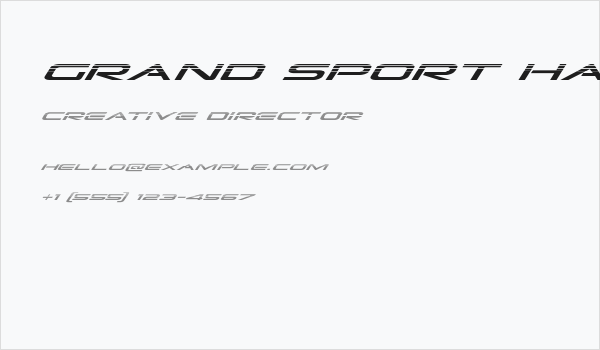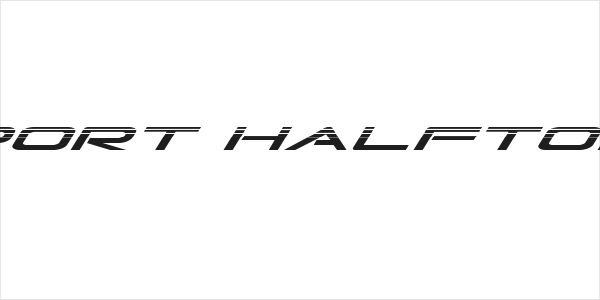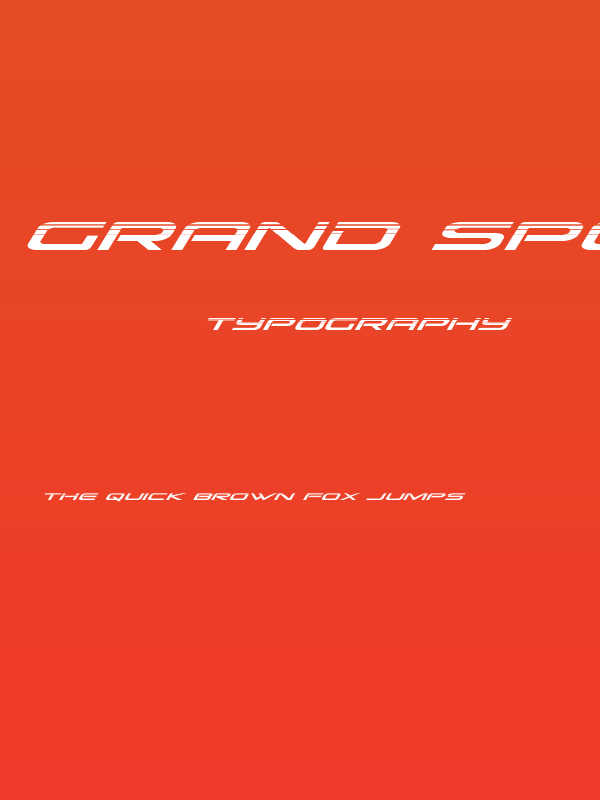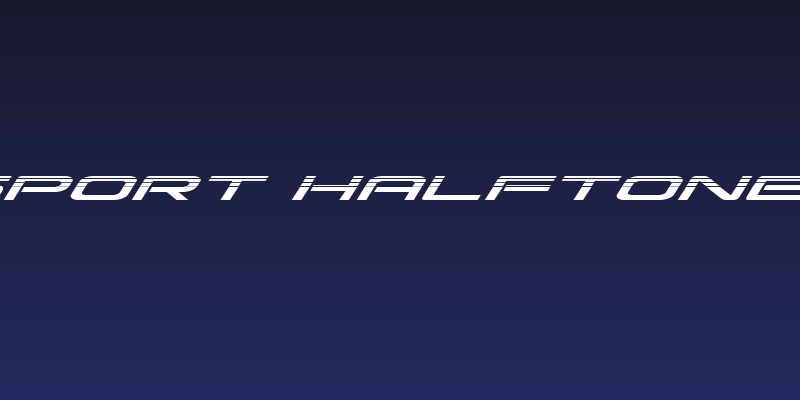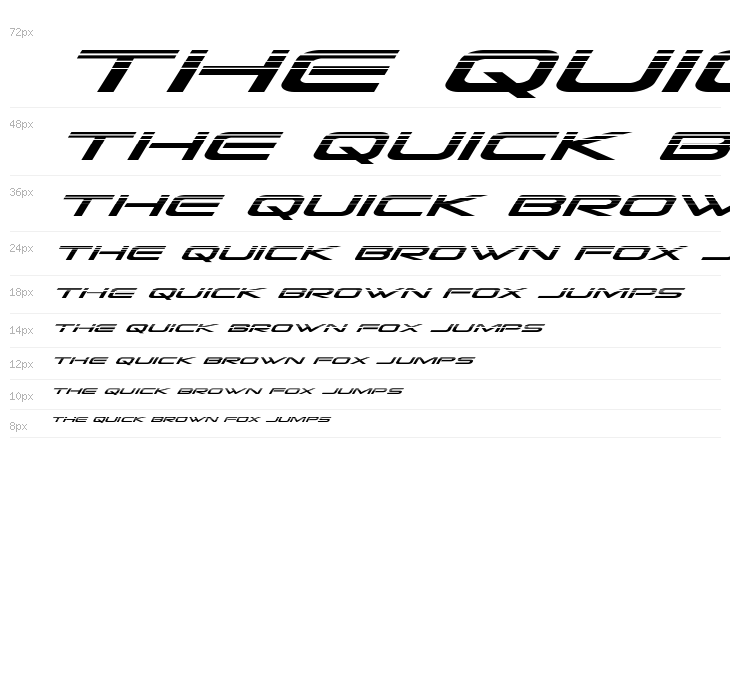
Grand Sport Halftone Italic Font
Grand Sport Halftone Italic Description
This font features a dynamic and sporty design with a halftone effect that adds a sense of motion and energy. The italicized letters are sleek and elongated, enhancing the impression of speed and agility. The characters are designed with a futuristic aesthetic, making them ideal for projects that require a modern and cutting-edge look. The halftone pattern within each letter adds depth and texture, creating a visually engaging experience. This font is perfect for designs that aim to convey a sense of innovation and forward-thinking.
| Proposed Projects | Ideal for sports branding, automotive designs, tech-related projects, and futuristic themes. |